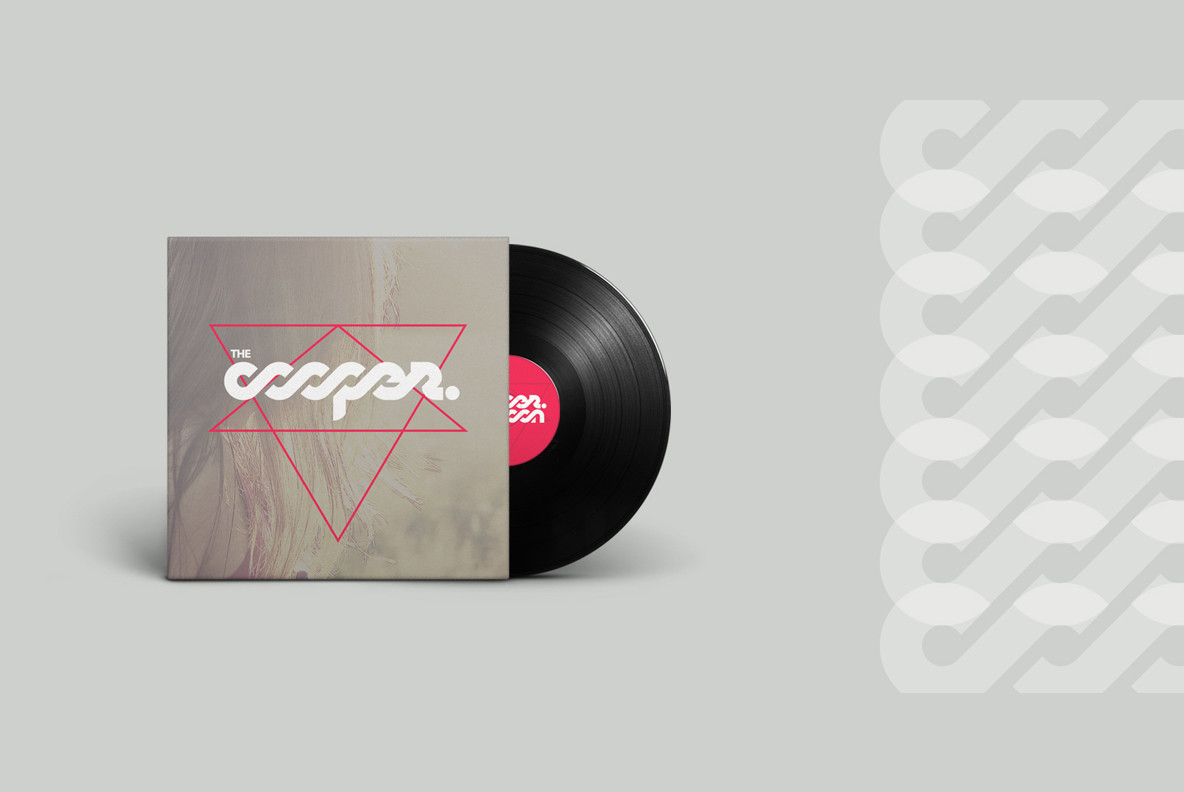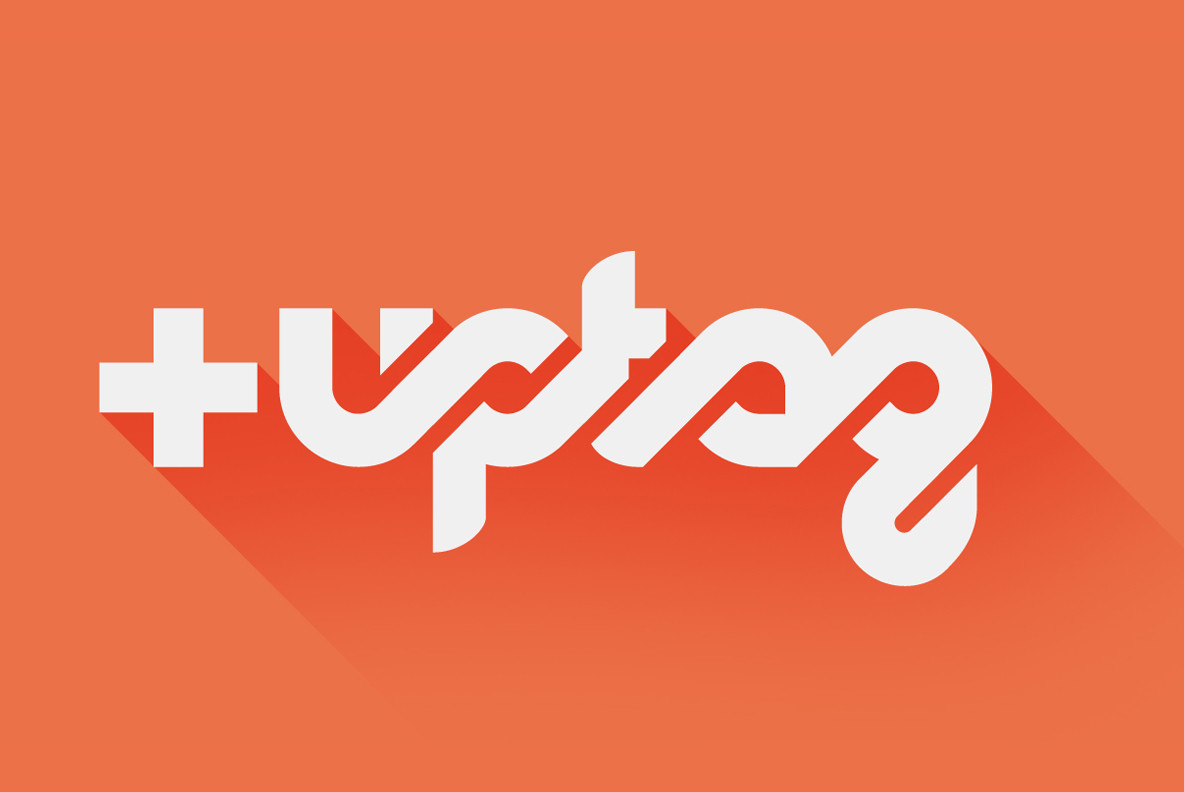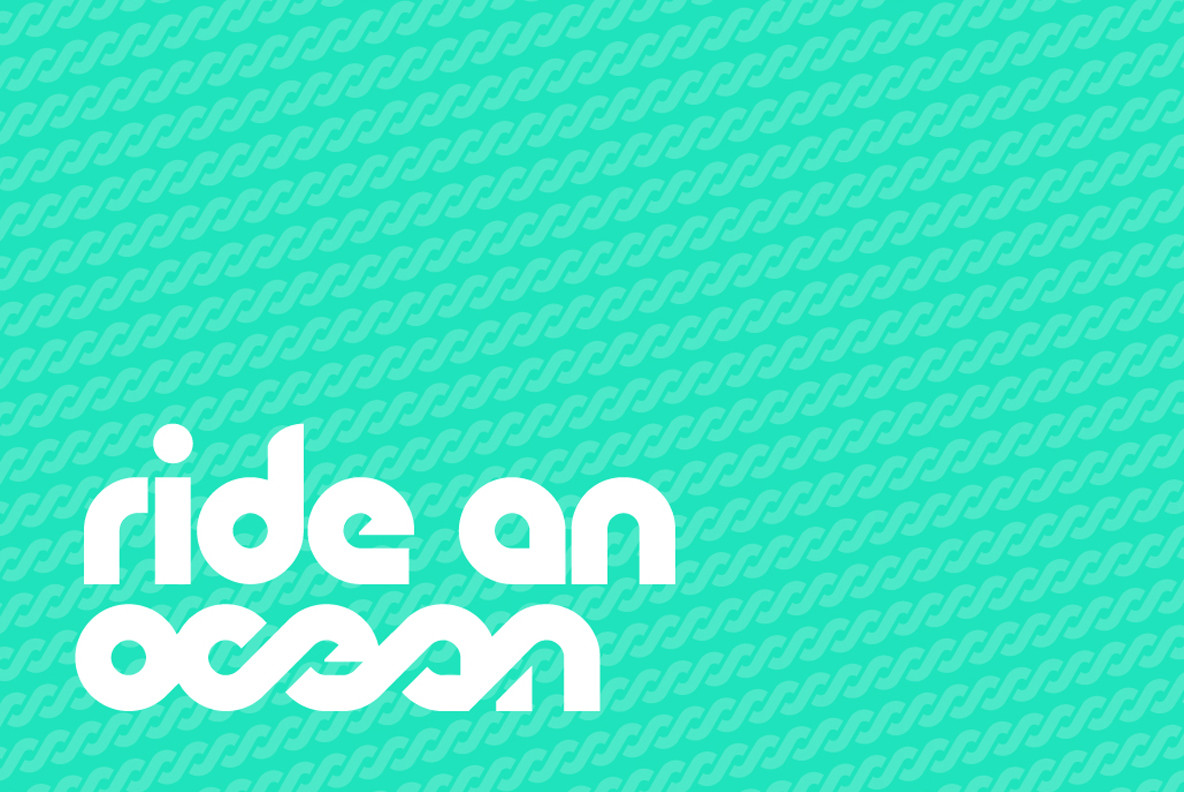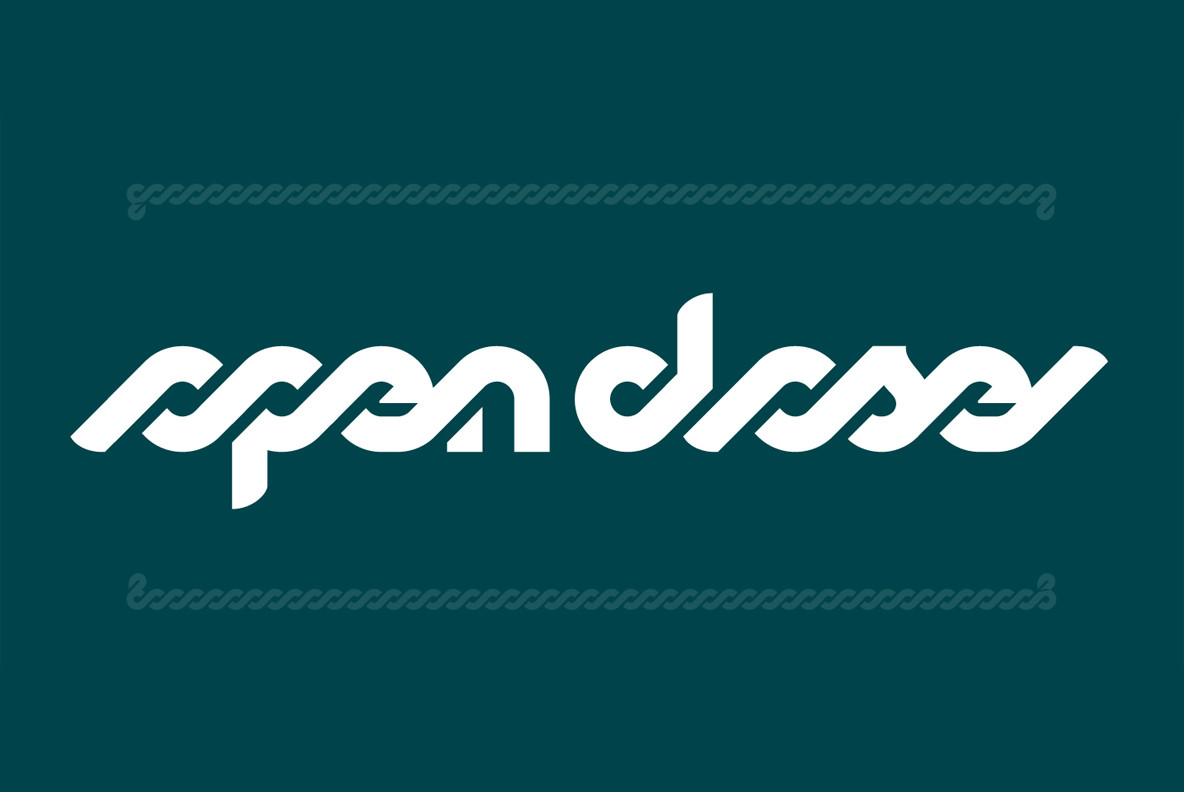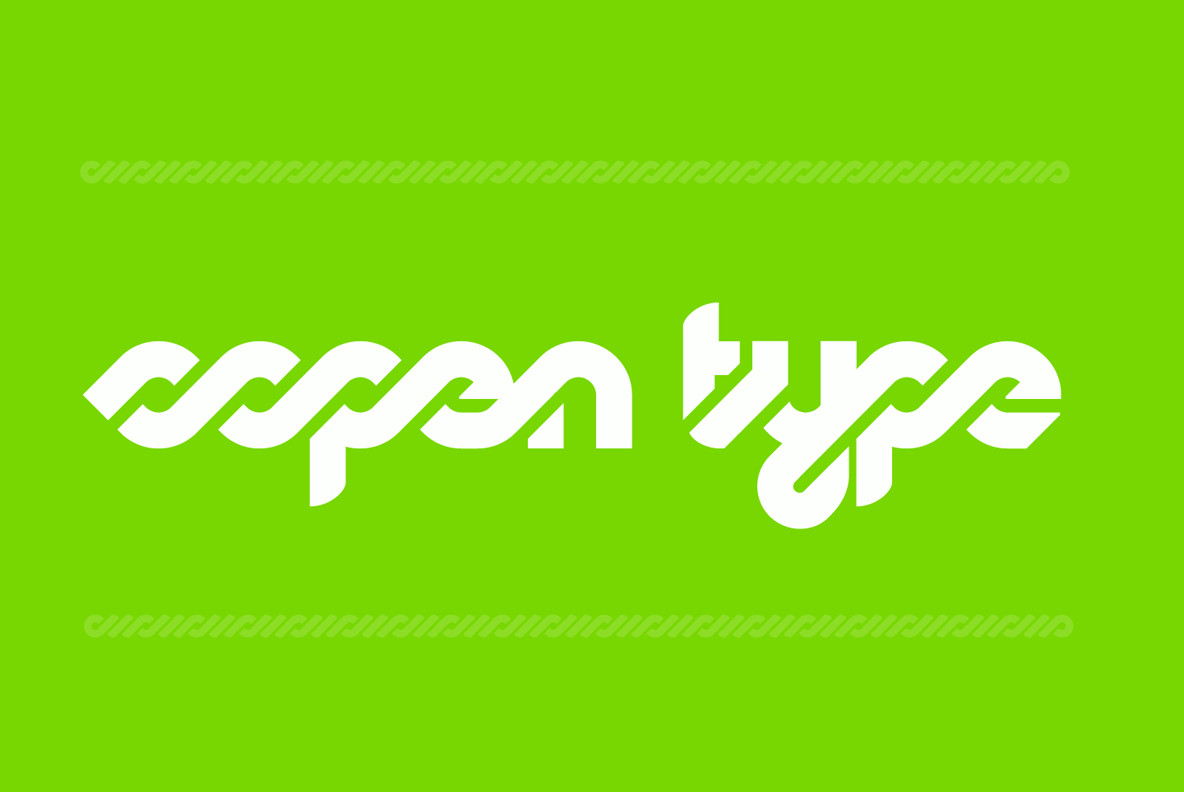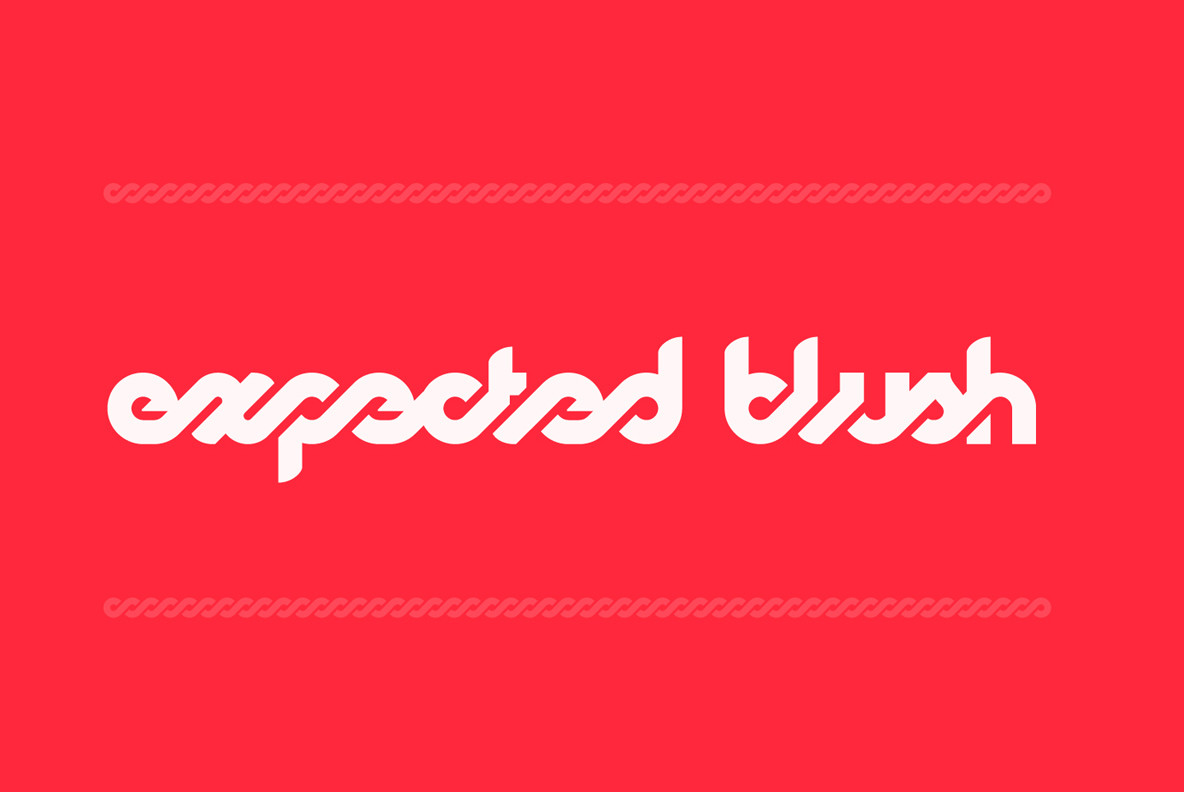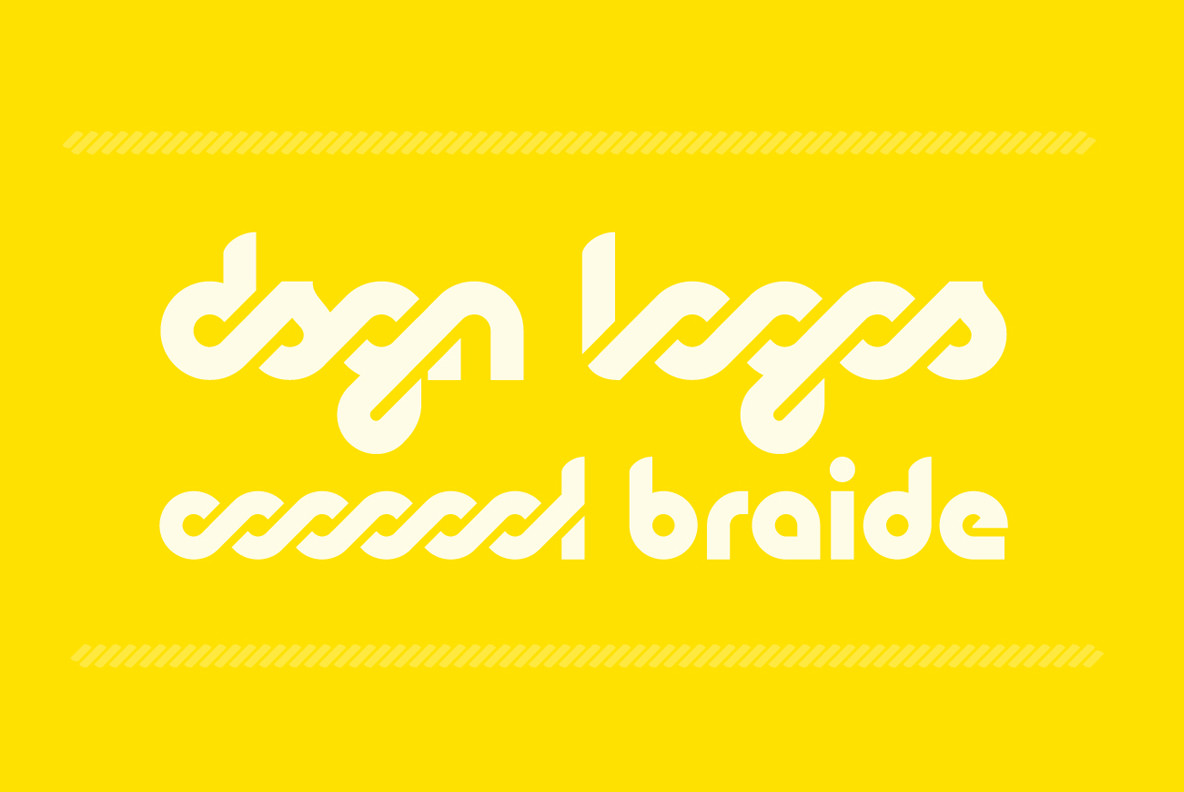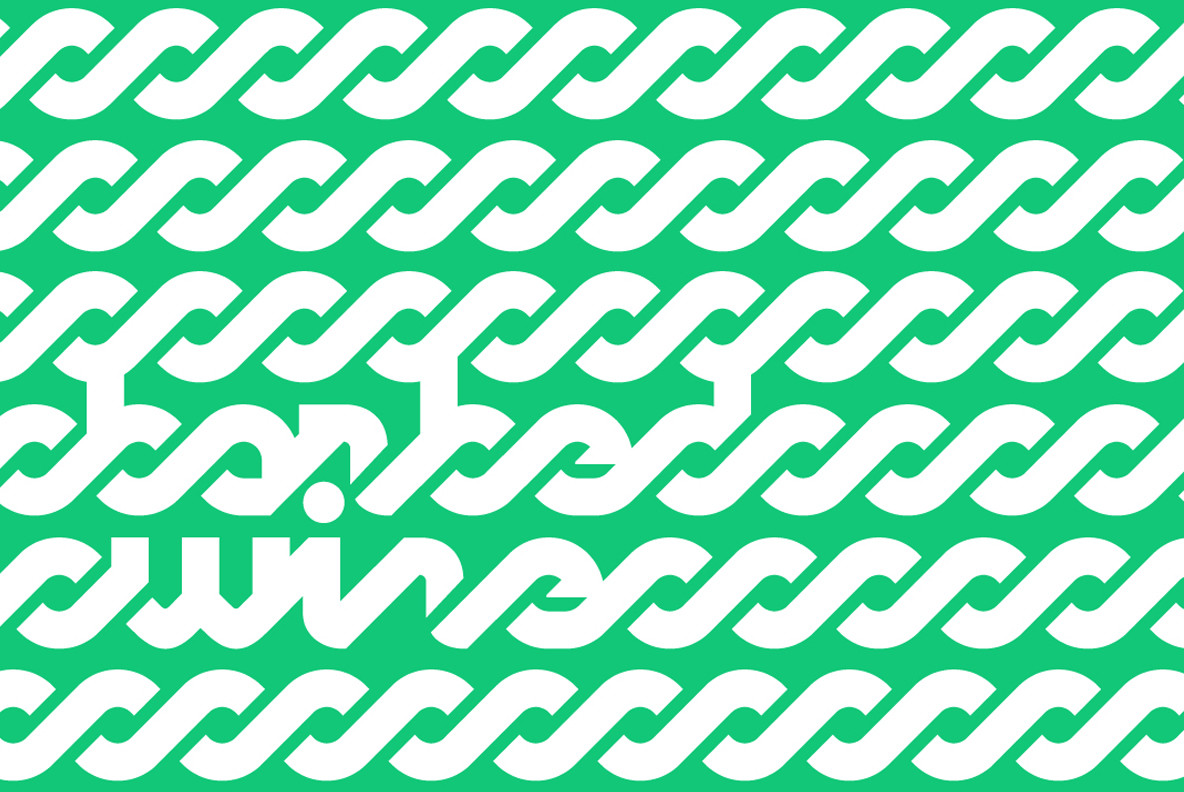
Logomotion
This is a typeface specially designed for logotypes, but can also be used in headlines, posters & signage. It has many OpenType programming features, that give a more playful and rhythmic spirit, creating an interesting geometric-sans and script mixture.
The design was based on an awesome logotype created by Andrej Matic.
Designers: Fernando Díaz & Andrej Matic